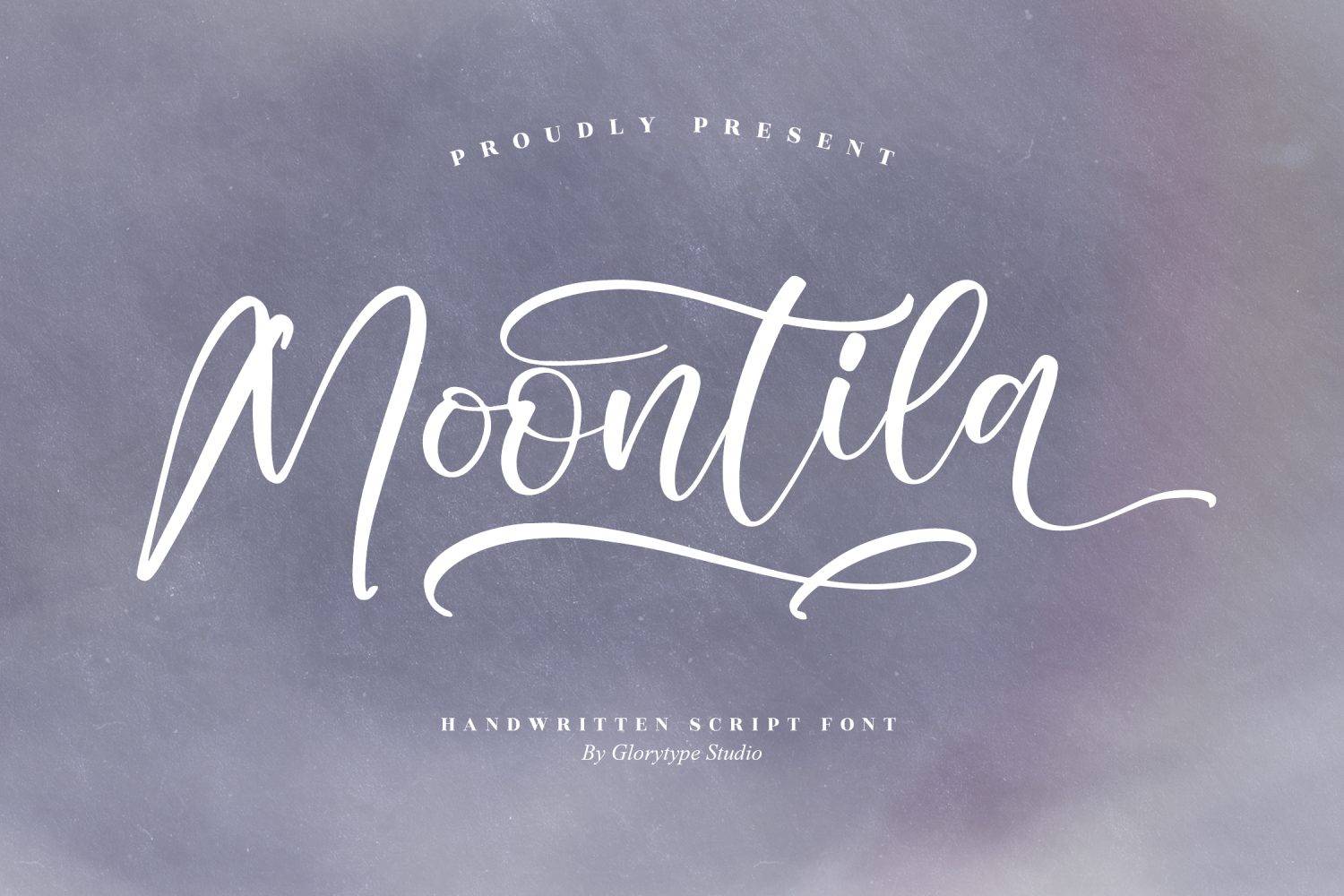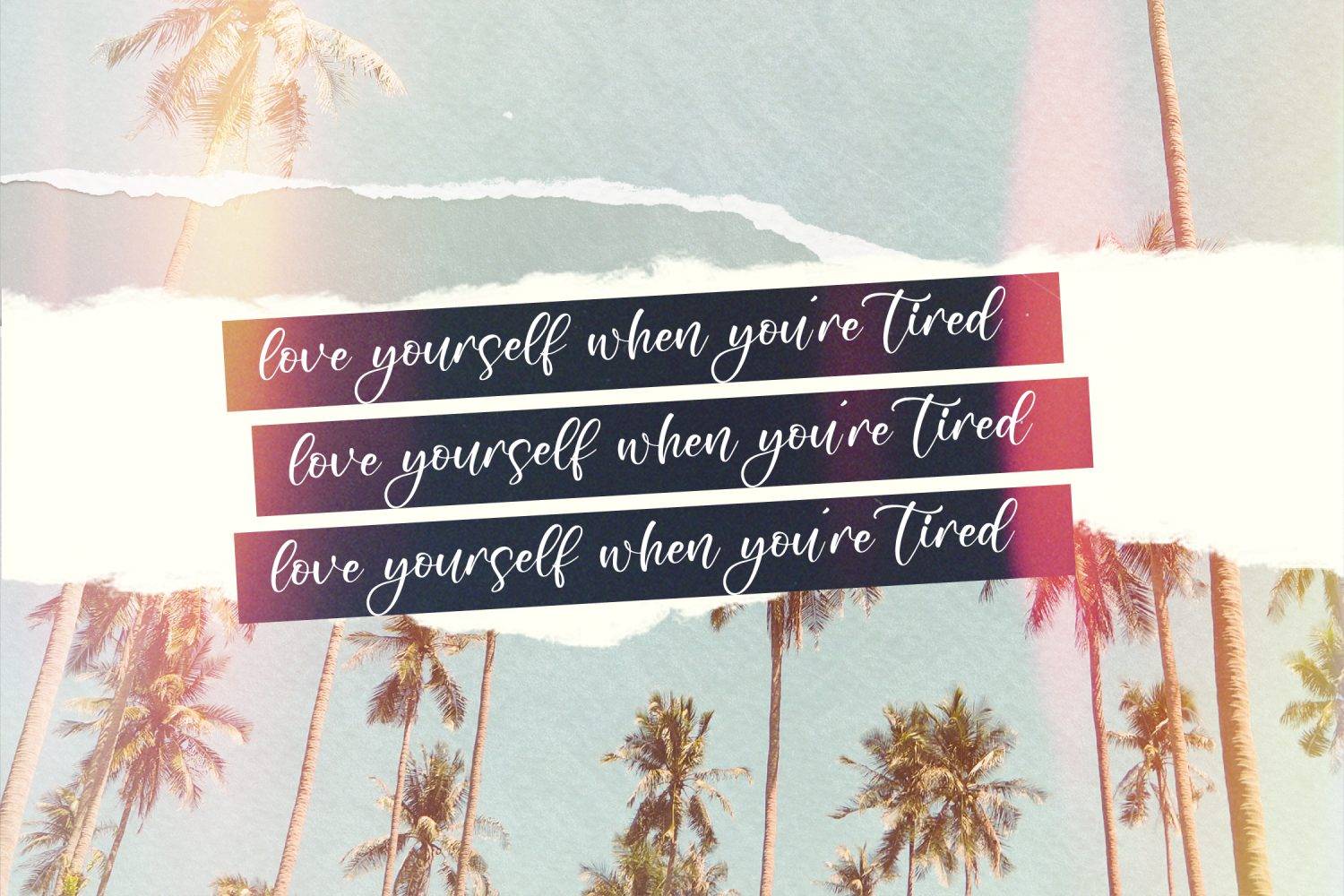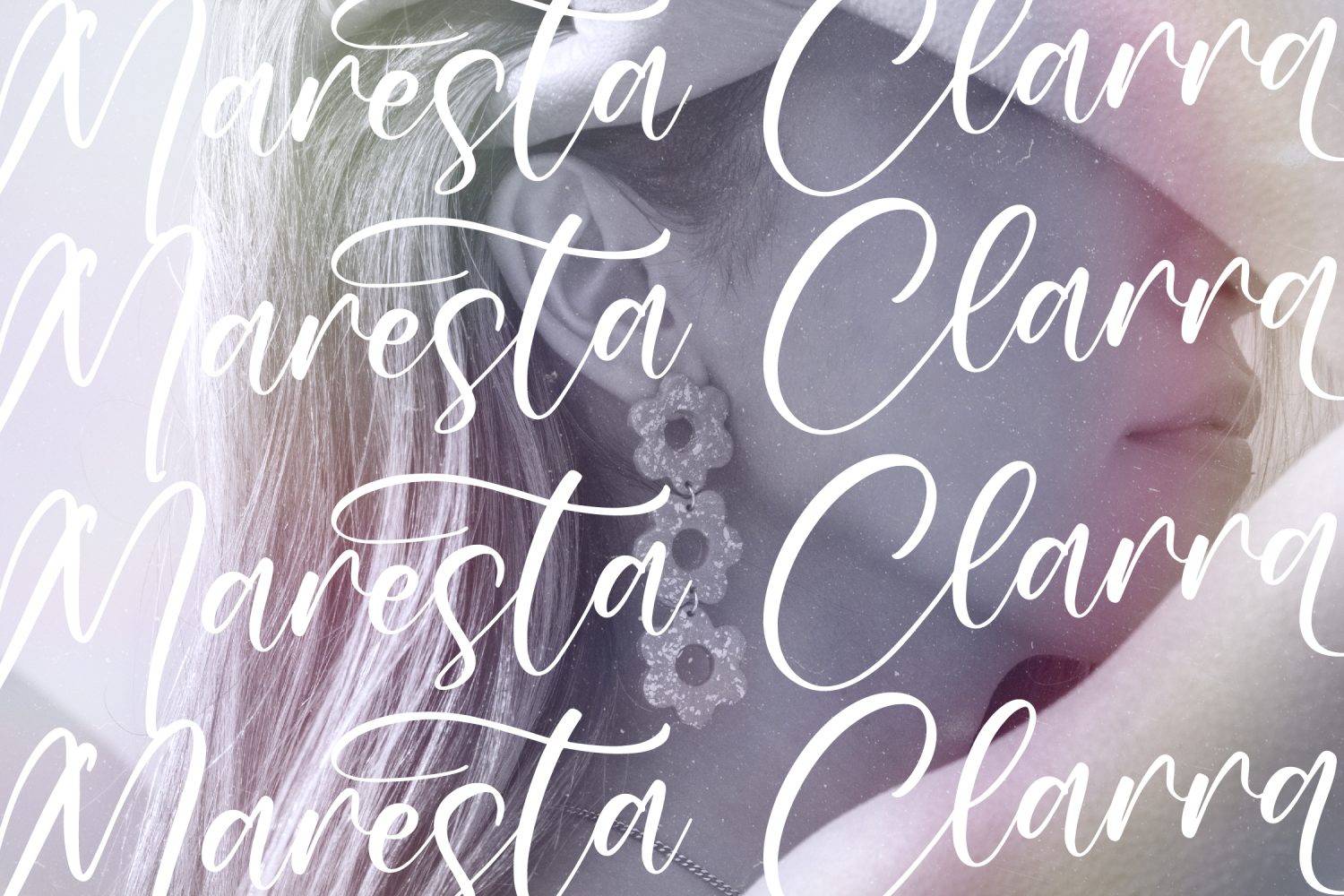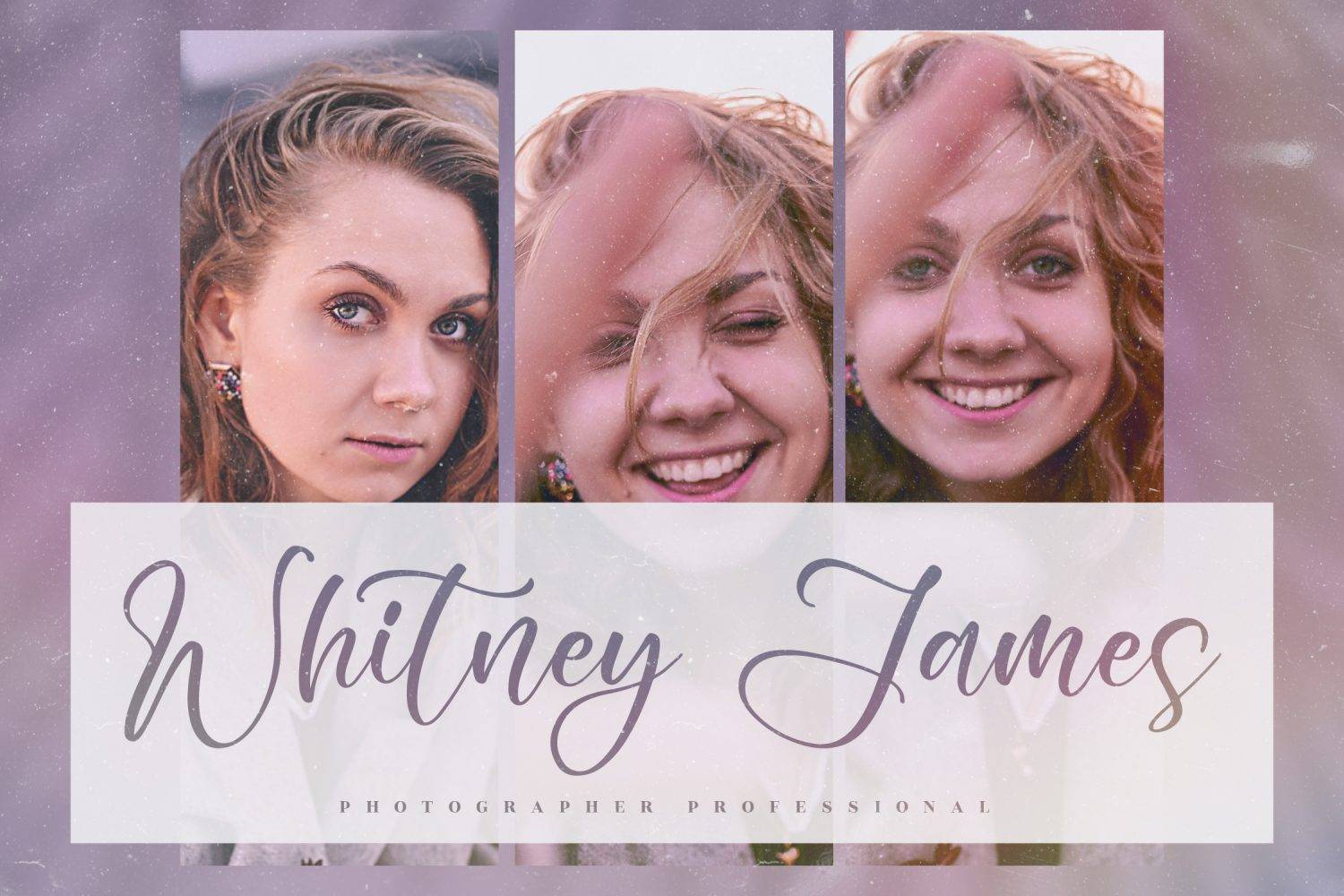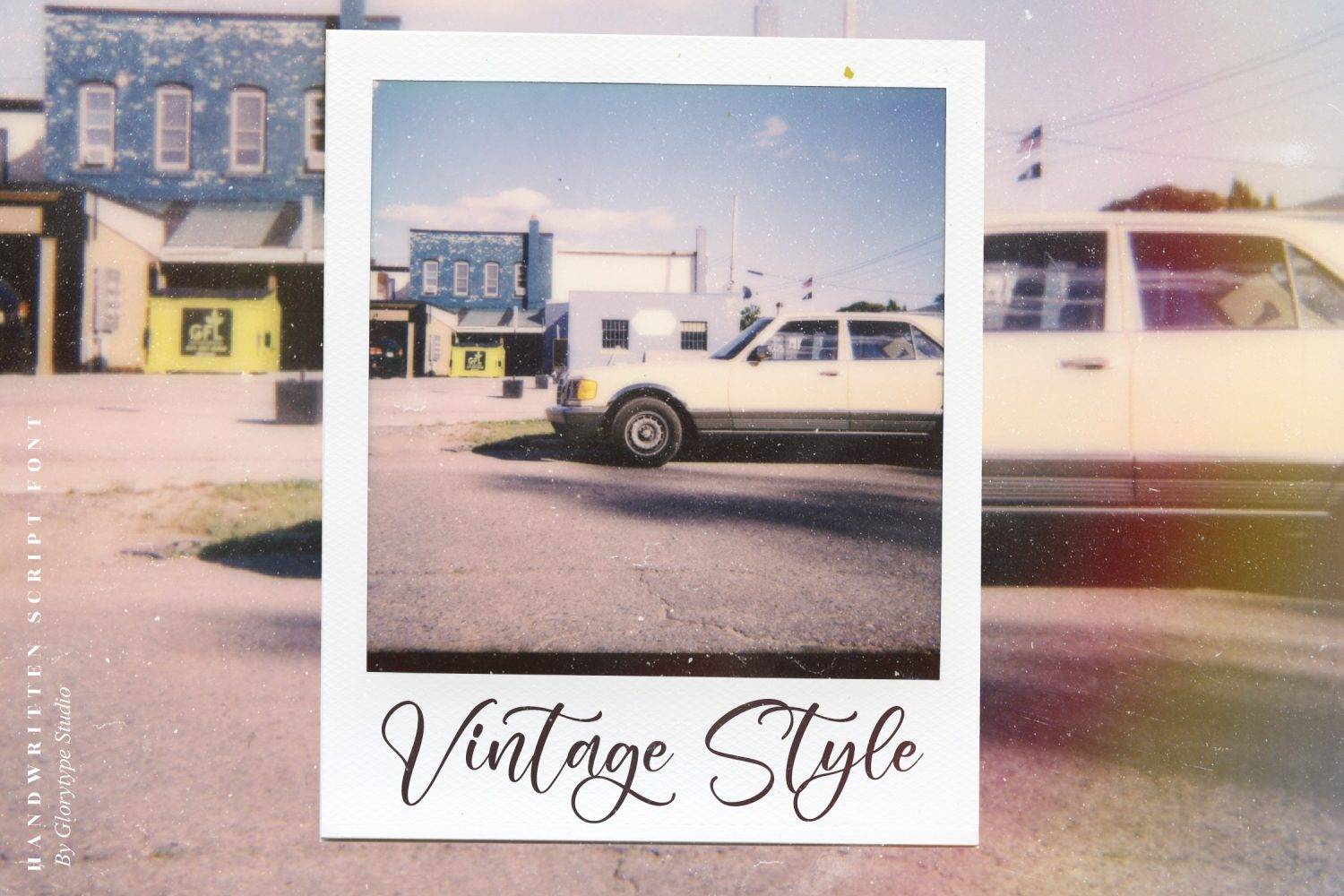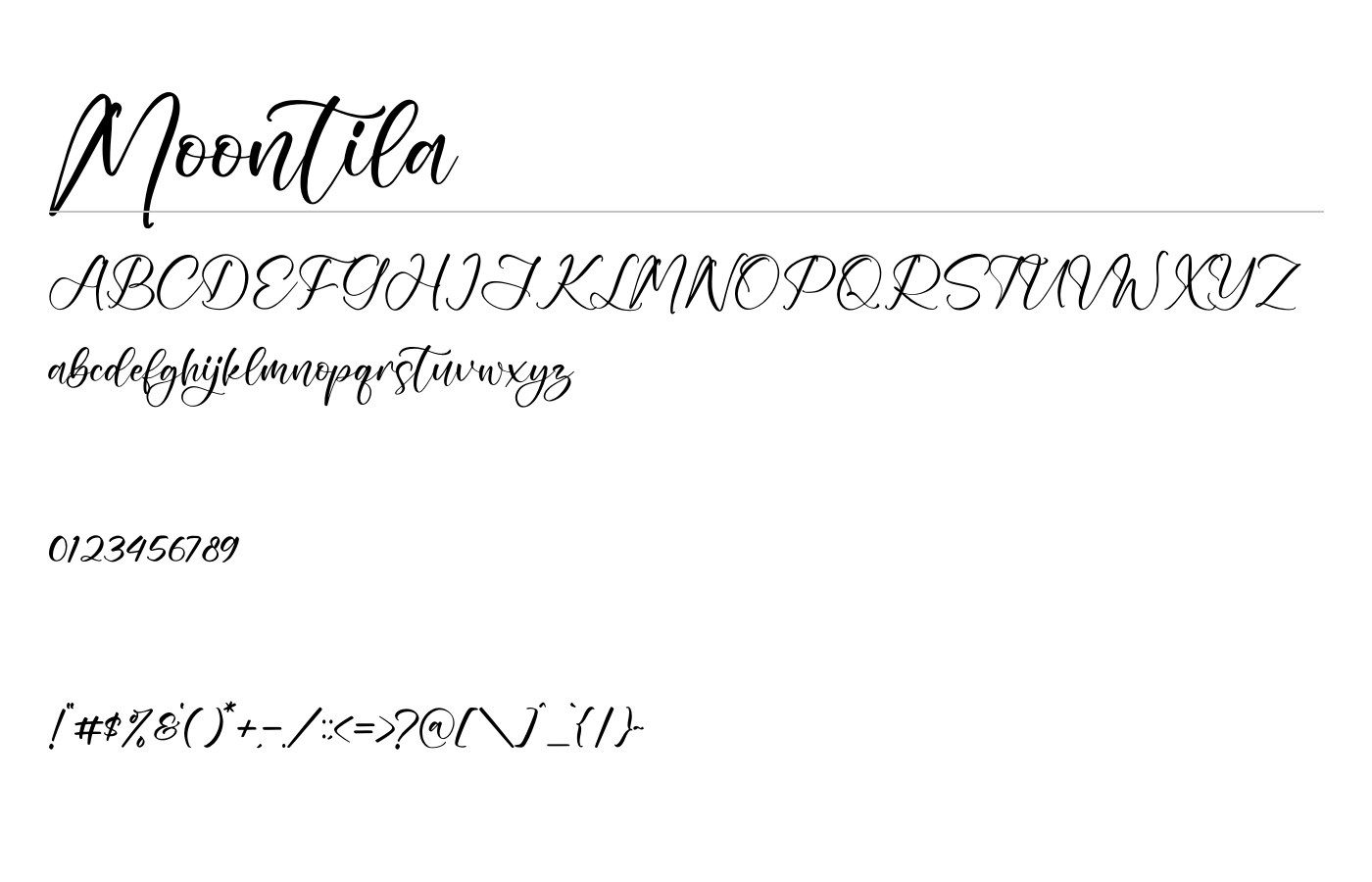
Moontila is a delicate and elegant script font characterized by its fluid, handwritten calligraphic style with smooth, varying strokes that give it a graceful and personal touch. Its slender, slightly condensed letterforms and flowing connections make it perfect for inviting and sophisticated branding, wedding invitations, or stylish editorial use, where a touch of charm and refinement is desired.
Moontila Font